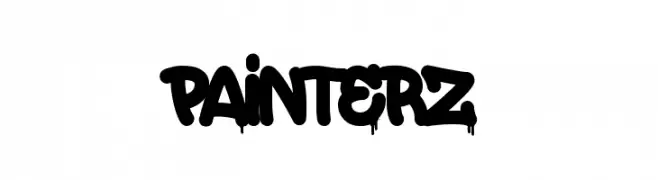
A bold, distressed font with a grunge, spray-painted look.
A bold, melting-effect font with a dynamic and edgy style.
A bold, graffiti-inspired font with an urban, artistic style.
A bold, eclectic font with a rebellious, punk-inspired aesthetic.
A bold, playful font with a fluid, melting appearance and thick, uniform strokes.
A bold, graffiti-inspired font with a playful, urban aesthetic.
A bold, distressed font with a grunge aesthetic and textured splatters.
An artistic, hand-drawn font with chaotic, energetic strokes.